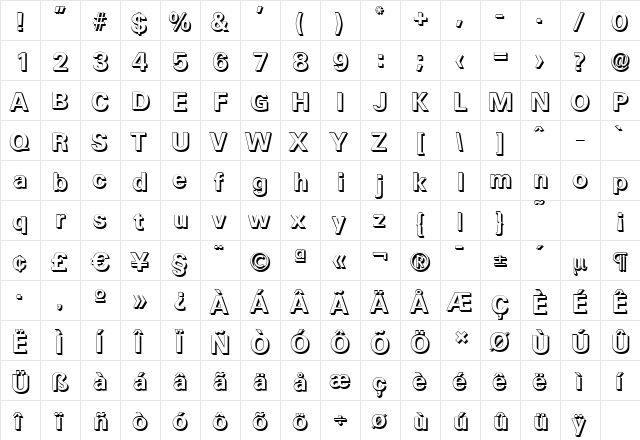
UltimateShadow Bold
Design Context for UltimateShadow Typeface
UltimateShadow is built around its visual character rather than neutral utility — its distinctive forms are designed to make an impression at display sizes. The heavy weight commands attention and anchors typographic hierarchies.
Font Pairing: Pair with a clean neutral sans-serif for body copy to let UltimateShadow's character lead without overwhelming the composition.
Pro Tip: Use UltimateShadow exclusively at display sizes — it was designed to be seen, not read at length. Let a neutral companion handle body copy.